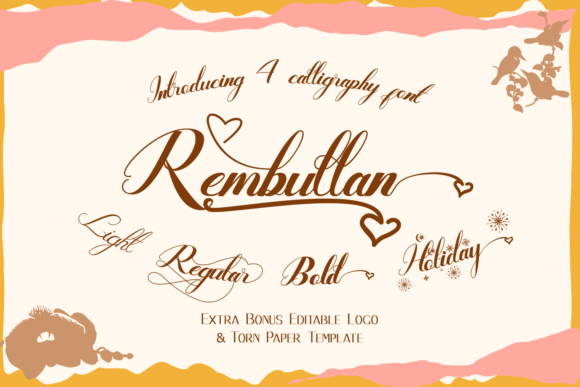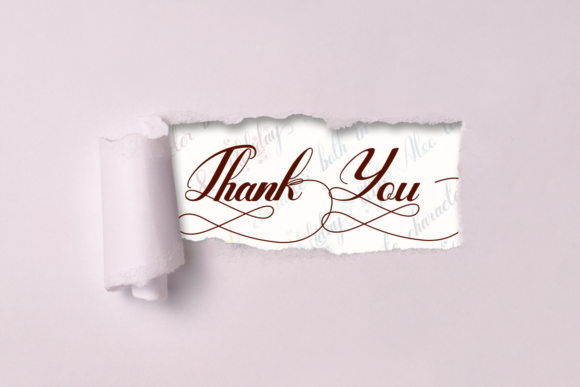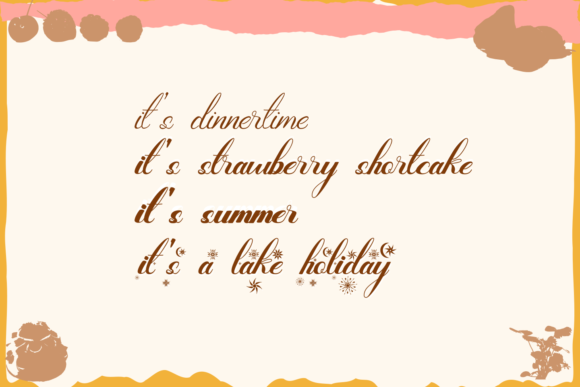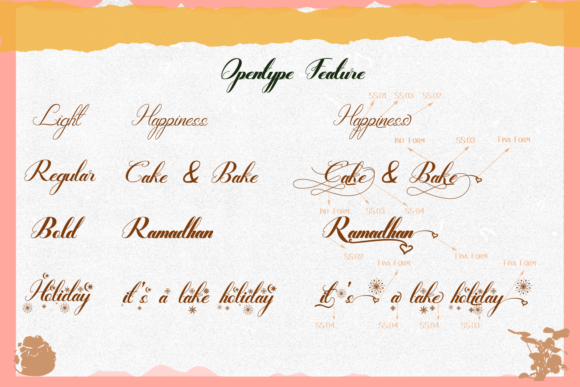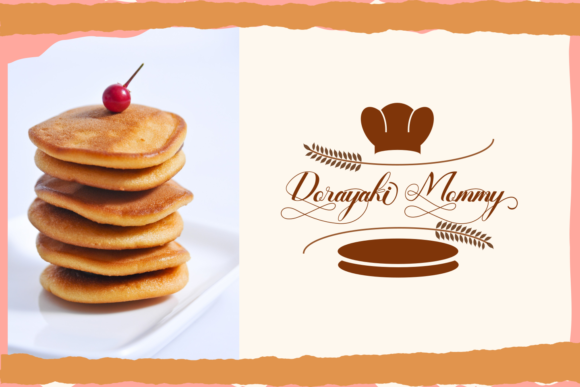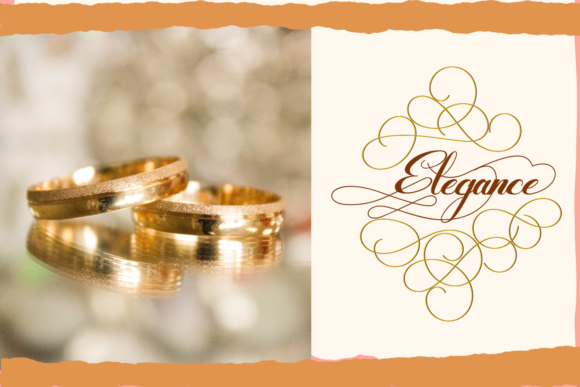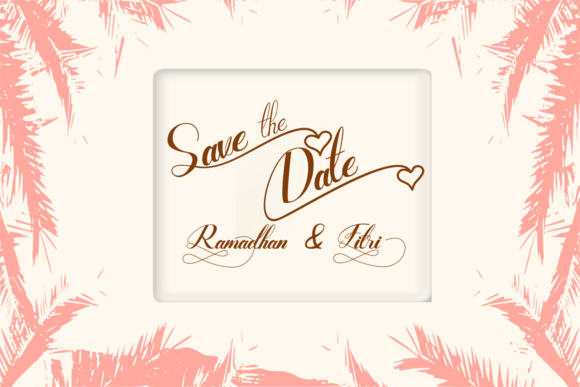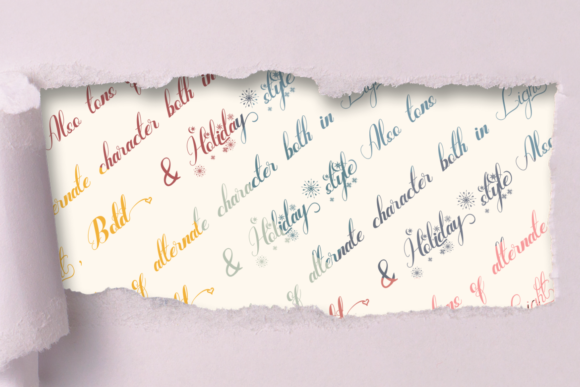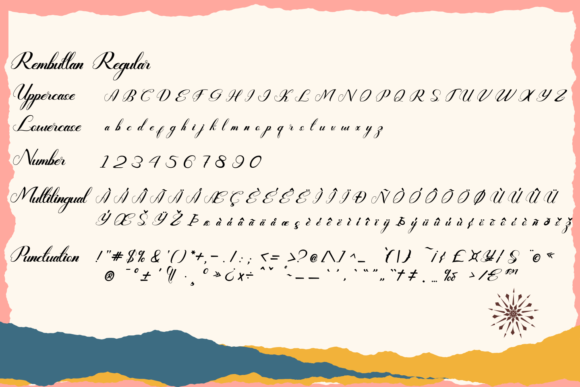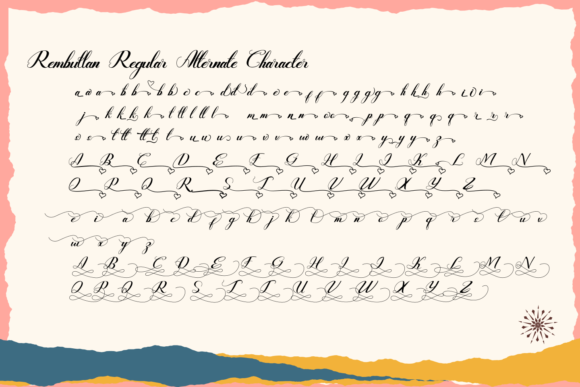
Rembullan Font
About Rembullan Font
Rembullan is a beautiful script family. Get inspired by its versatility, and turn any creative project into a stand out!